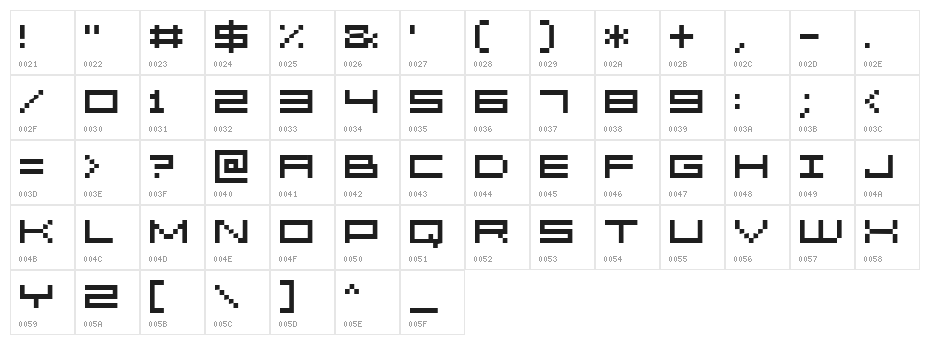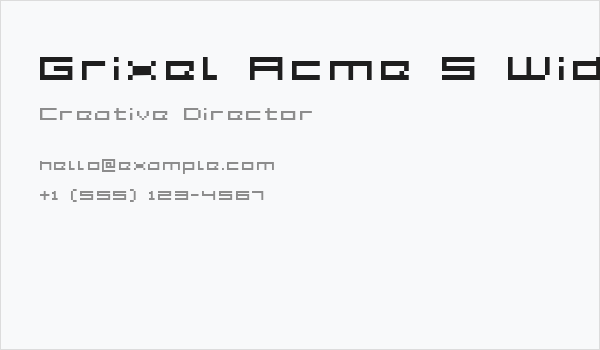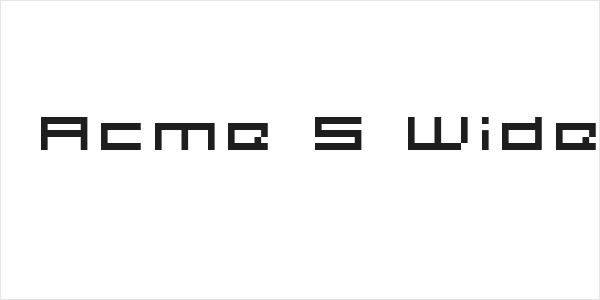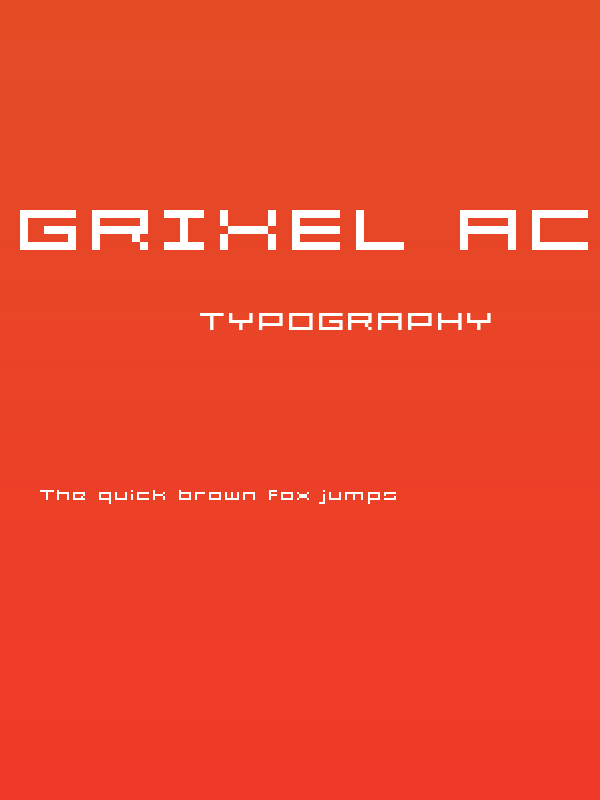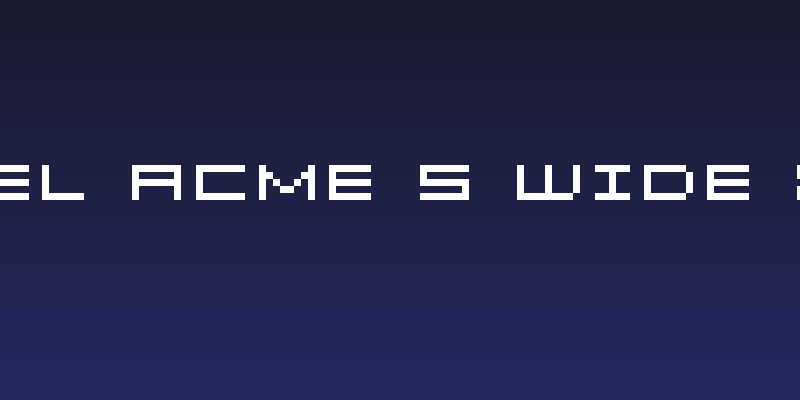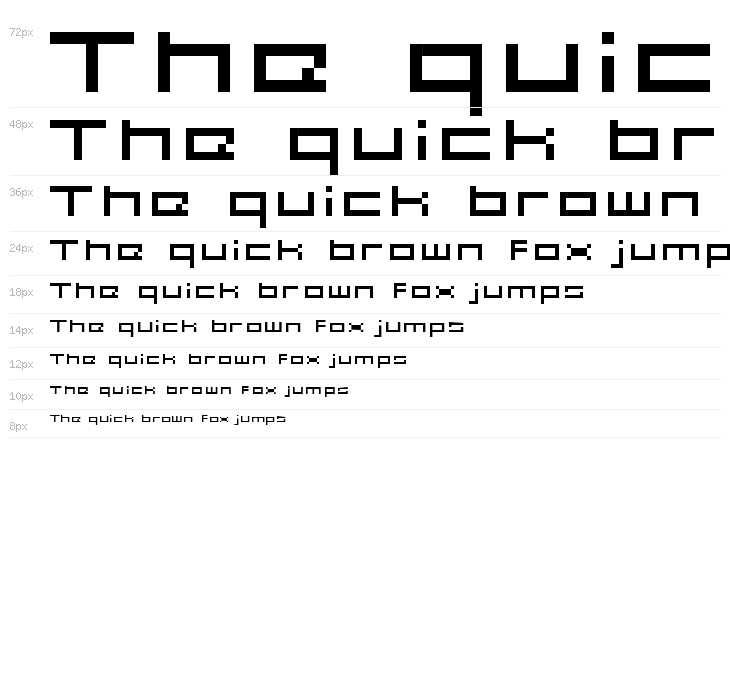
Grixel Acme 5 Wide Xtnd Font
Grixel Acme 5 Wide Xtnd Description
This font features a pixelated, blocky design reminiscent of early digital and arcade aesthetics. Each character is constructed with a uniform grid-like structure, giving it a distinctly retro and technological feel. The uppercase and lowercase letters maintain a consistent height, contributing to a cohesive and orderly appearance. The numerals and special characters follow the same design principles, ensuring visual harmony across all glyphs. This font's style is ideal for projects that aim to evoke nostalgia or a digital theme, such as video games, tech branding, or retro-themed designs.
| Overall Style | Retro, Digital |
| Use Case | Headlines, Logos, Digital displays |
| Proposed Projects | Ideal for retro video games, tech branding, digital art, and nostalgic designs. |